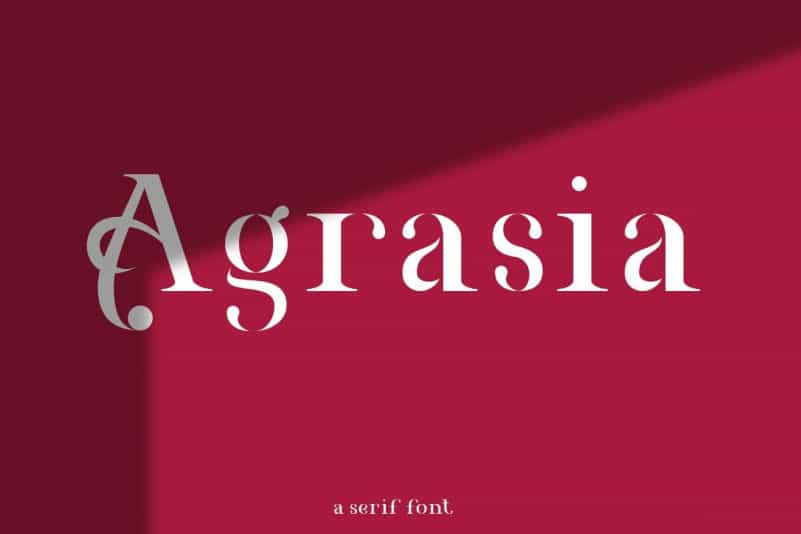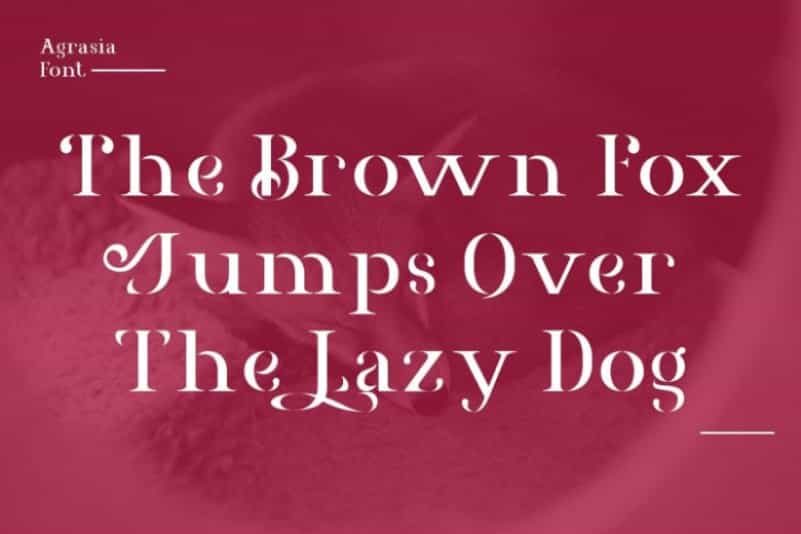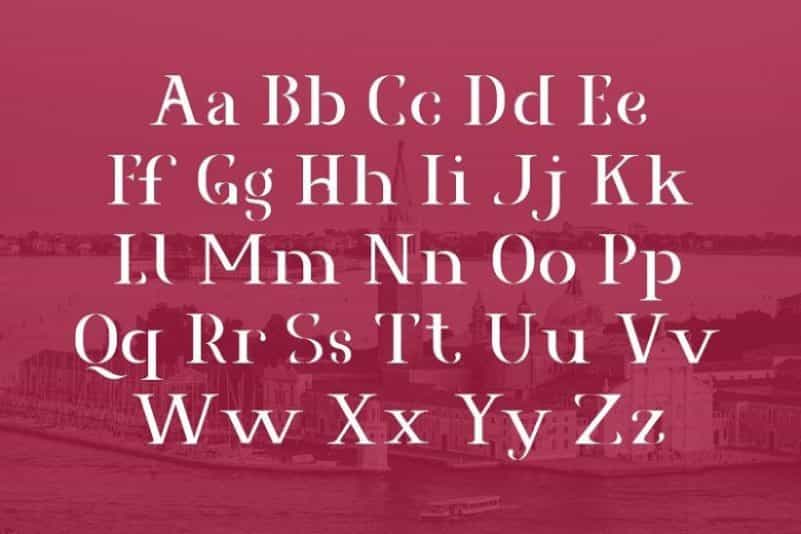
The Agrasia Font which is a Modern Serif type, has been released. it has a modern side and at the same time it is classic in spirit. Agrasia Font is a good choice for any design project like book, t-shirt, poster, card and so on. Agrasia has an additional 3 Uppercase Alternate glyphs to offer something different from the ordinary typefaces. you can modify it as you like to get more experience in typing.